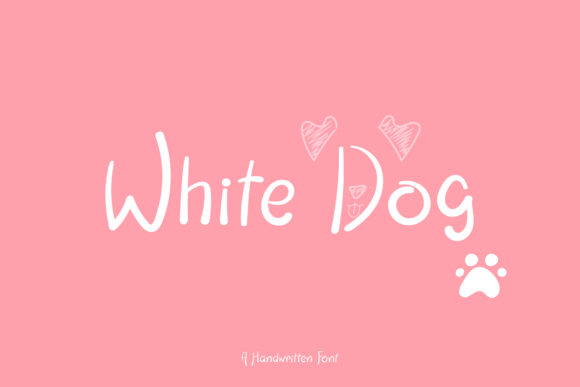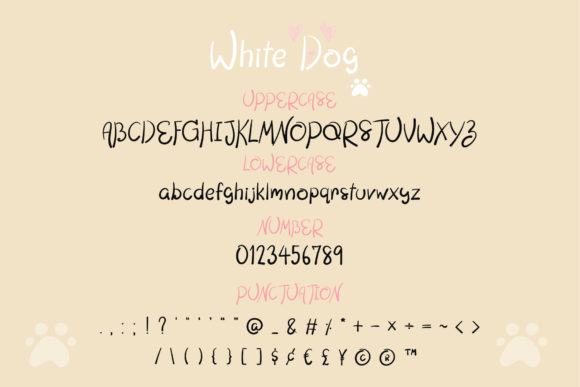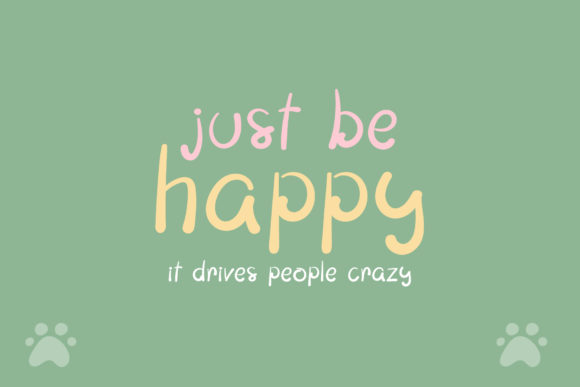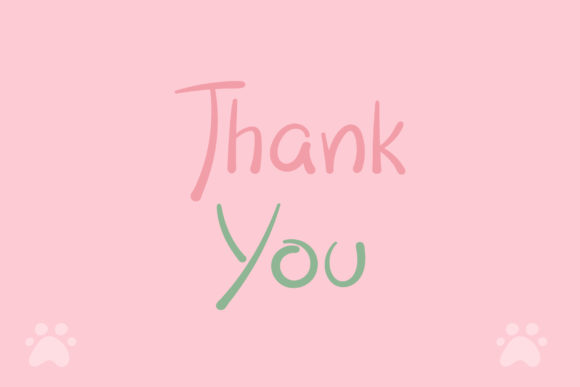
White Dog Font
About White Dog Font
White Dog is a simple, colorful and playful handwritten font. Clean and a little bit quirky, this font is the perfect fit for all of your logos, branding, social media, and crafty DIY projects.